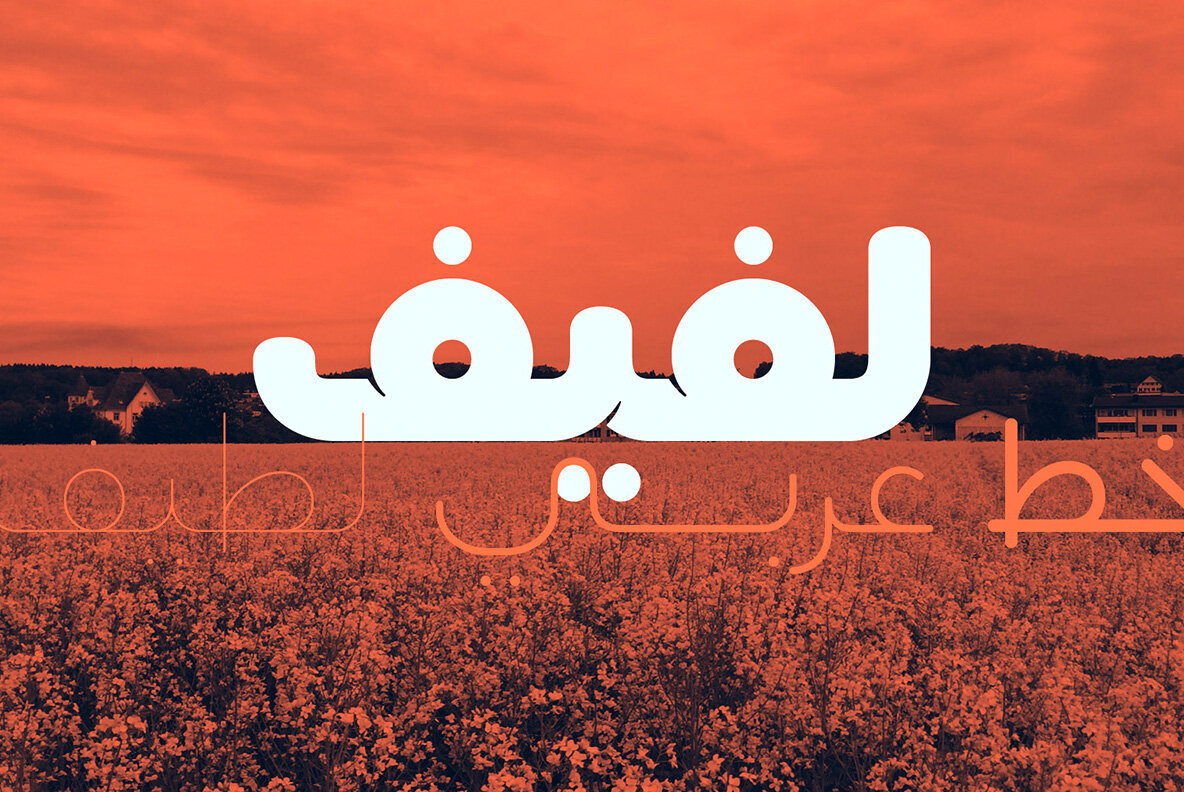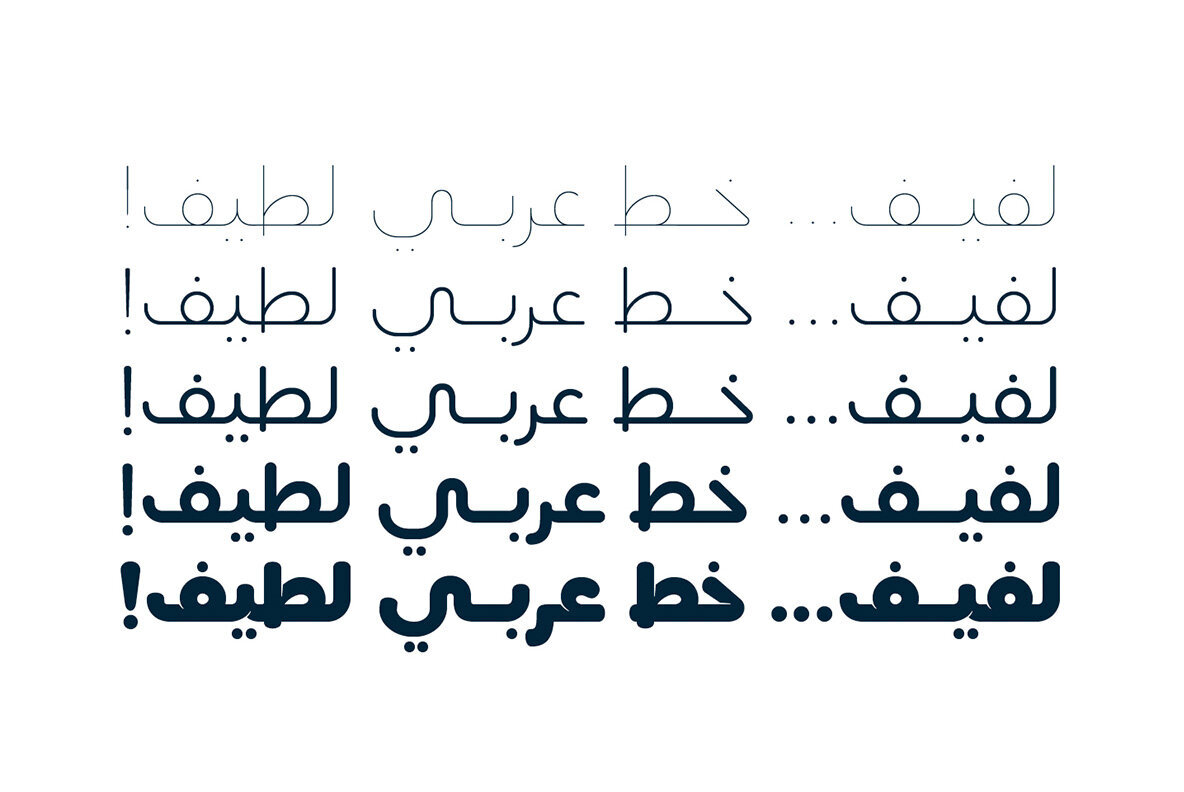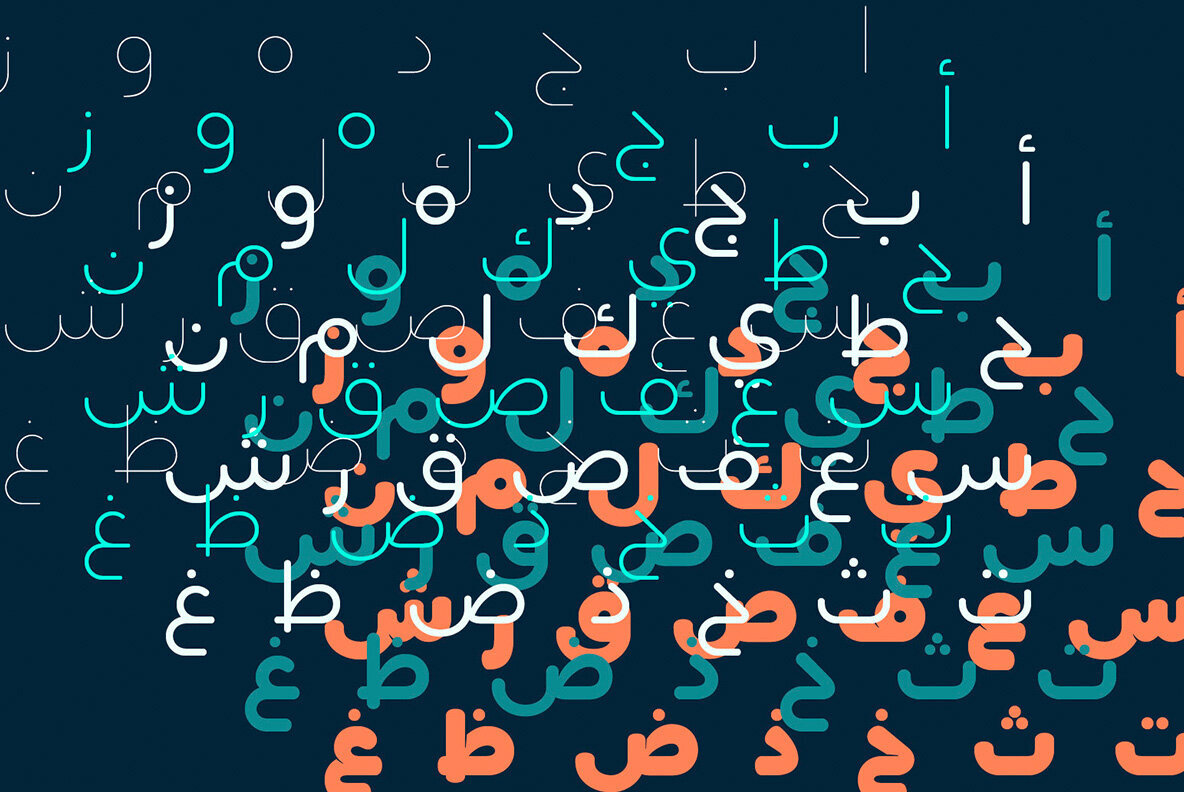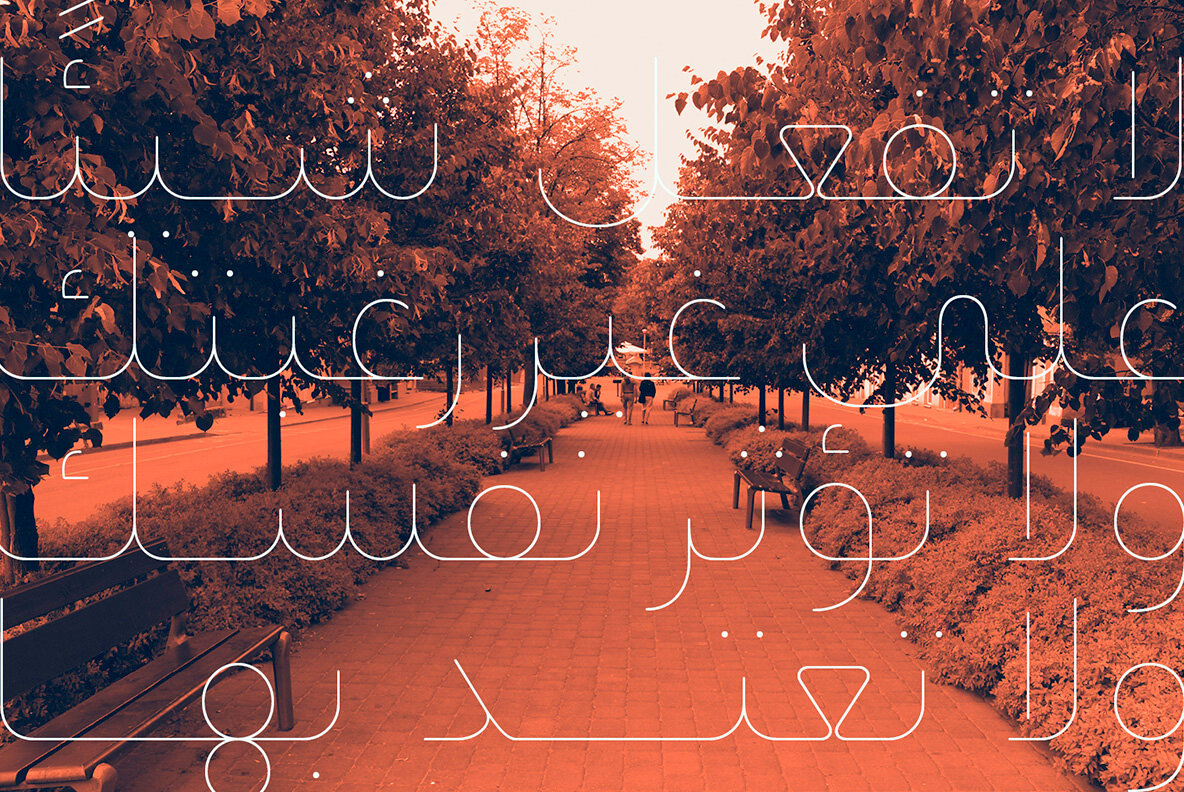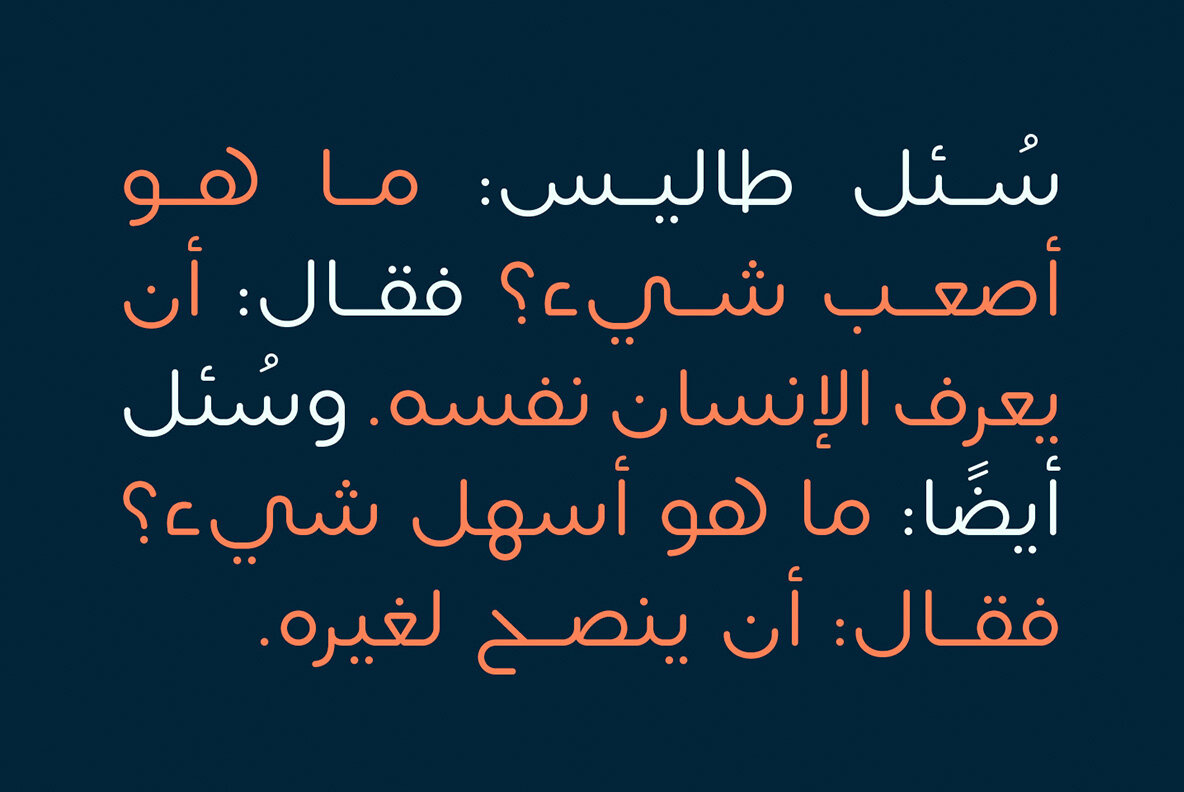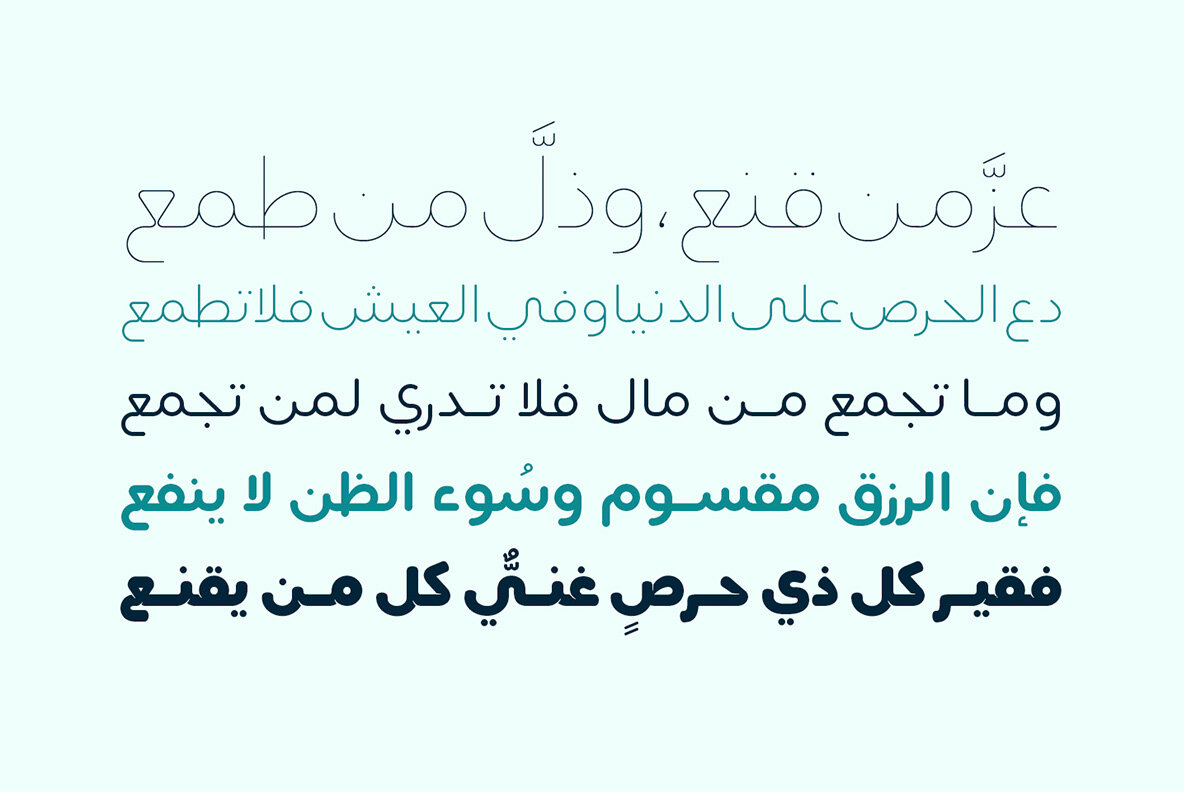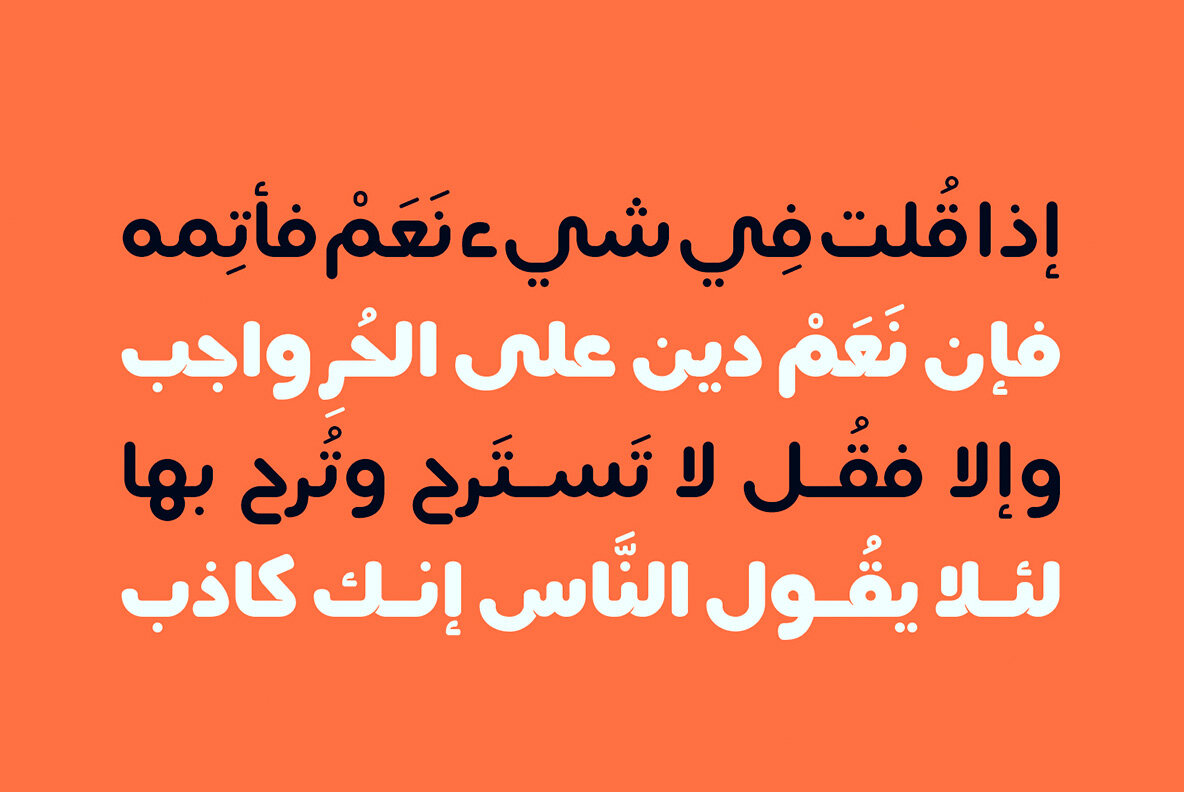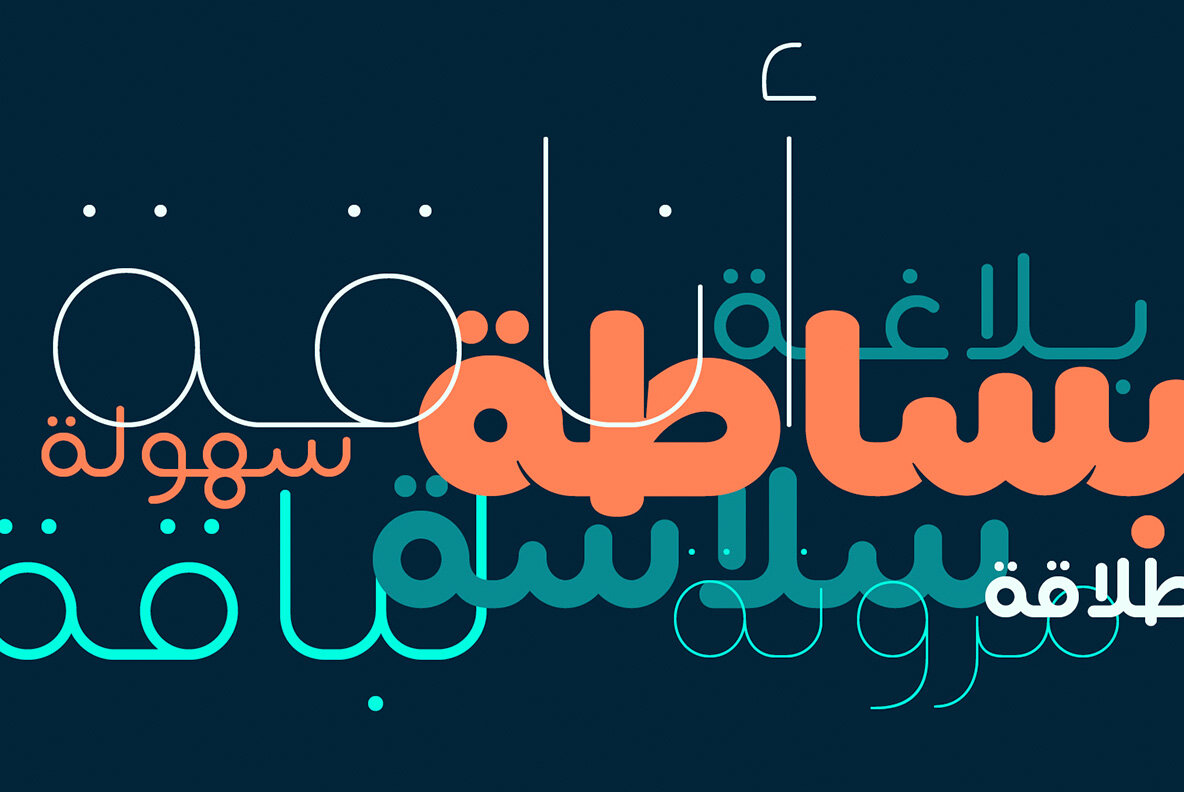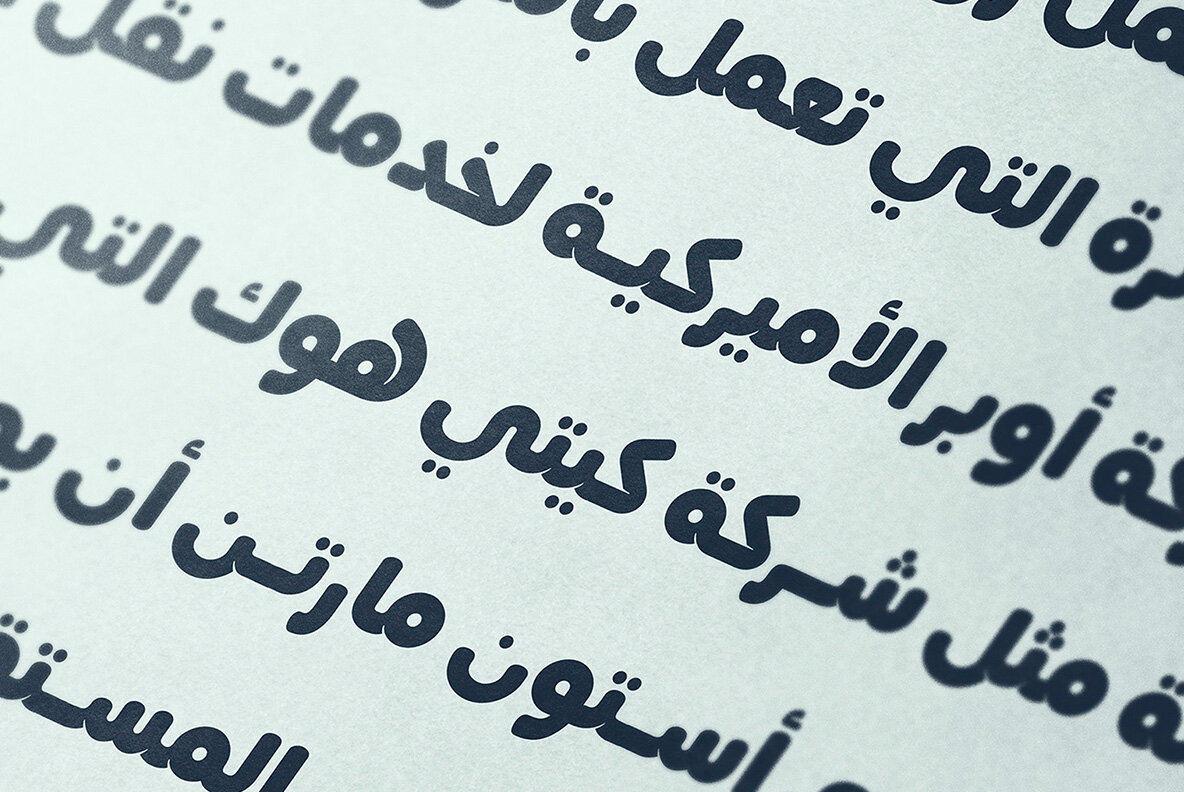
Lafeef Font
Lafeef brings a modern sensibility to Arabic typography through its smooth, rounded letterforms and quietly distressed terminals. Its design supports visual harmony while offering a natural, approachable character. Lafeef performs well in advertising, branding, digital interfaces, and mobile applications, giving designers a tool that adapts with ease across diverse contexts. The typeface’s five weights—Air, Light, Regular, Bold, and Fat—permit nuanced typographic choices. Lafeef serves creative professionals seeking both consistency and expressive flexibility for their work. Features:Lafeef: Contemporary Arabic Typeface With Rounded Forms